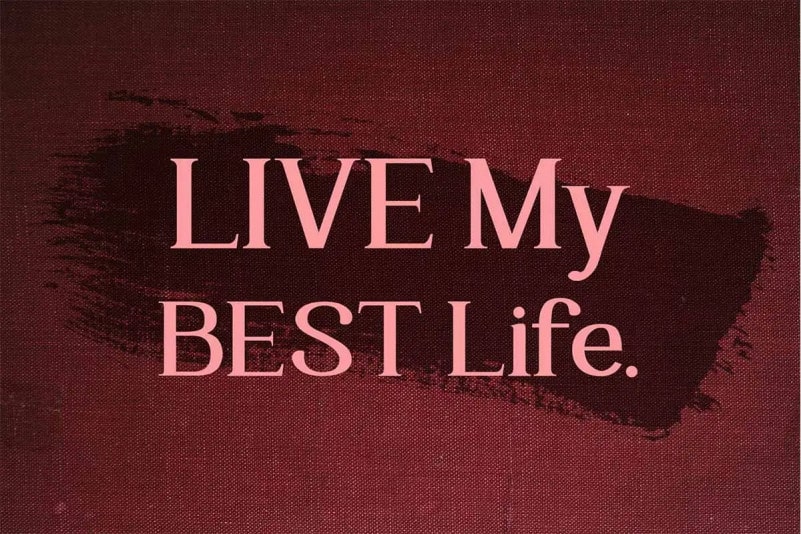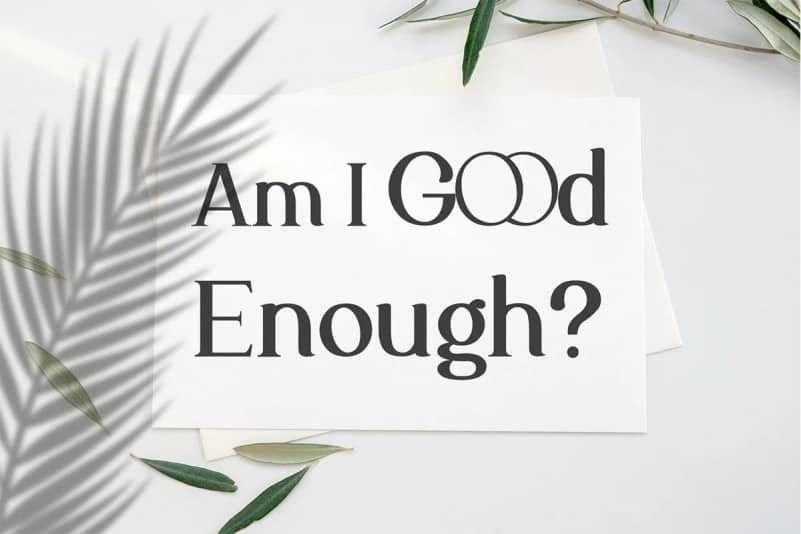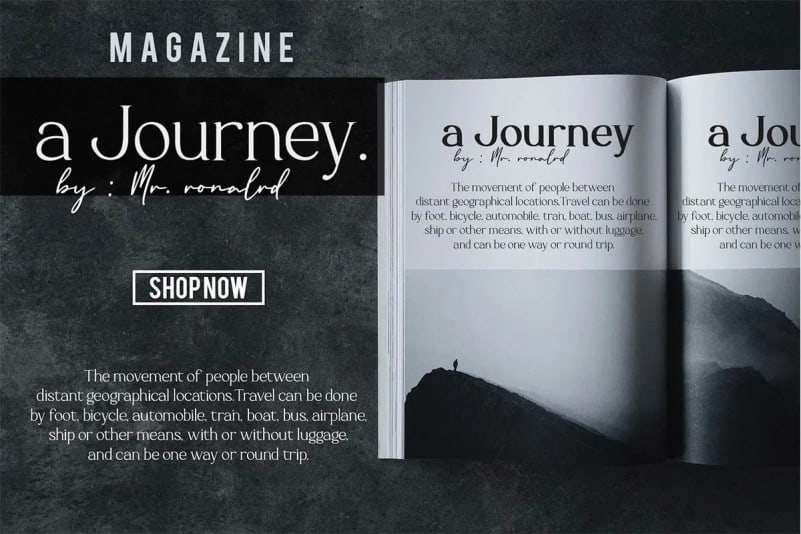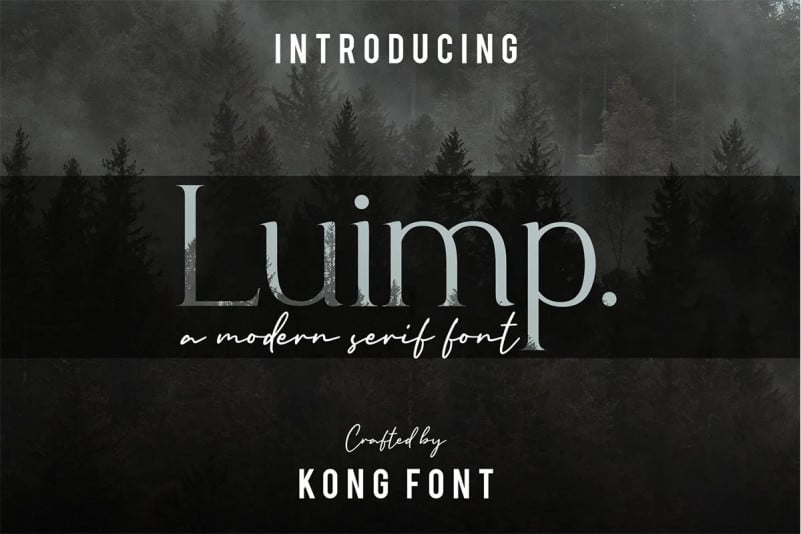
Luimp Serif Font is a typeface with a modern sans serif style, has a clean, modern and elegant character. It’s designed and shared by fontkong. An elegant serif with a handmade look that instantly adds a custom-made feel to logo designs and branding, editorial design, wedding invitation and stationery design or your very own artwork.